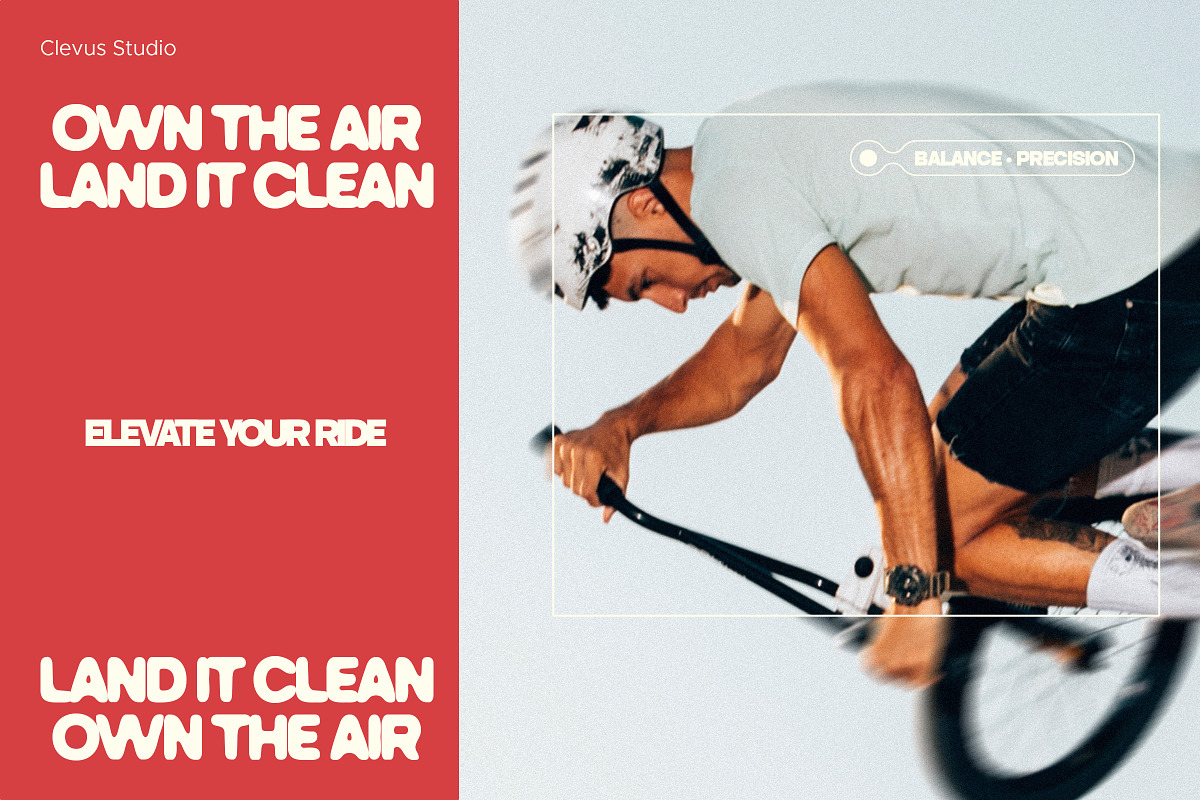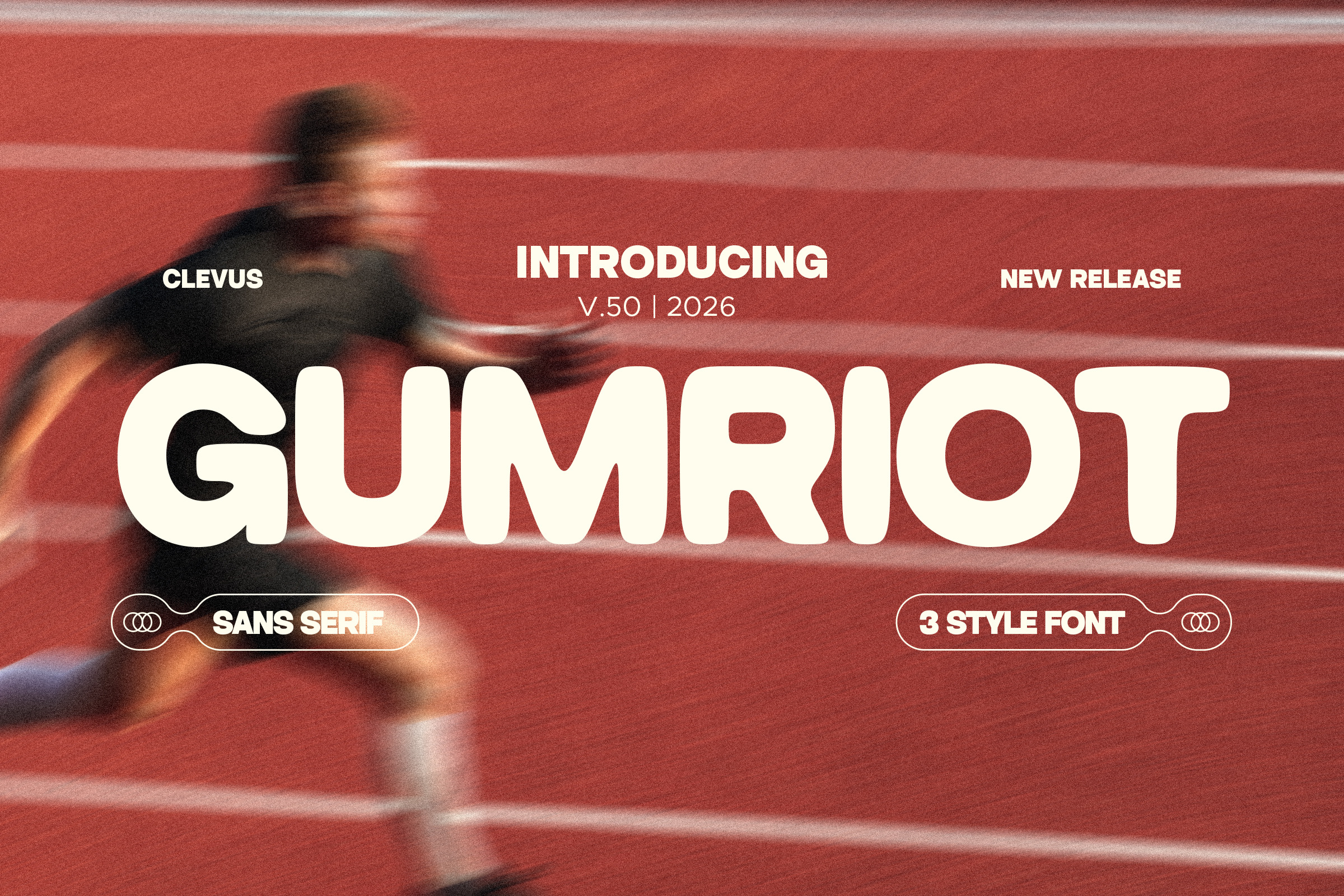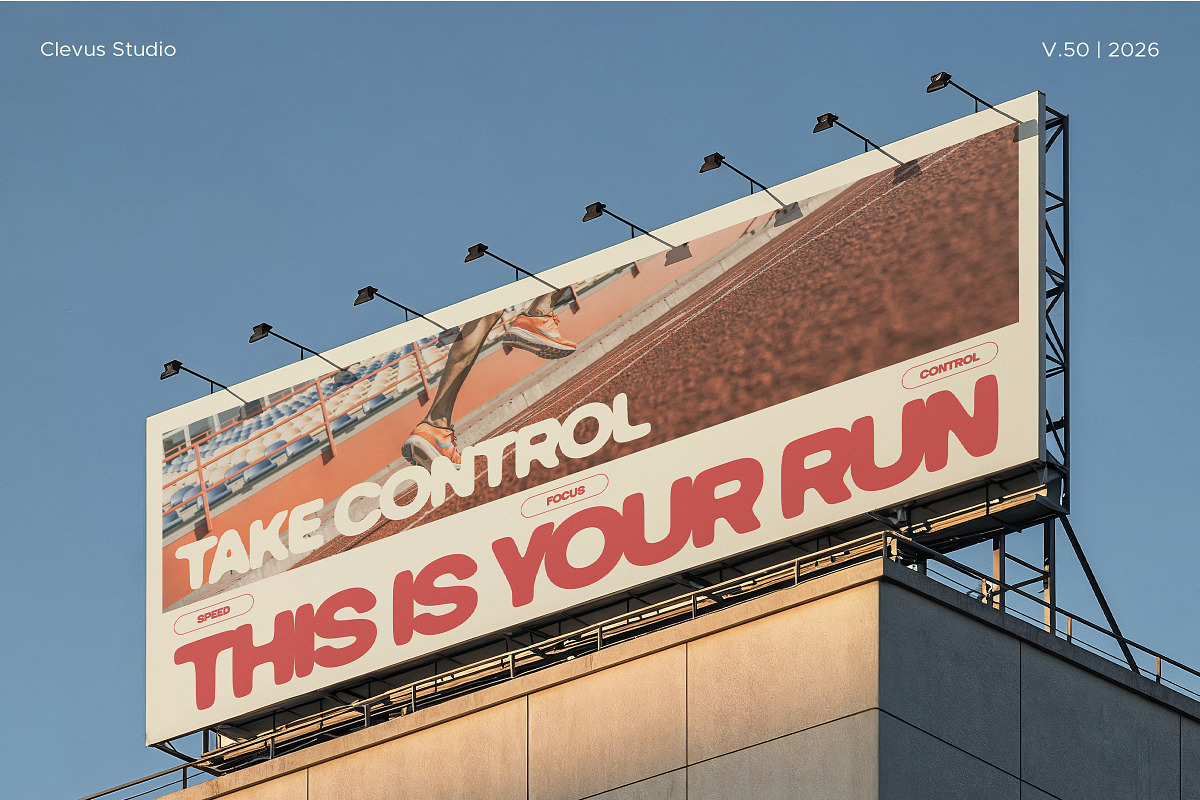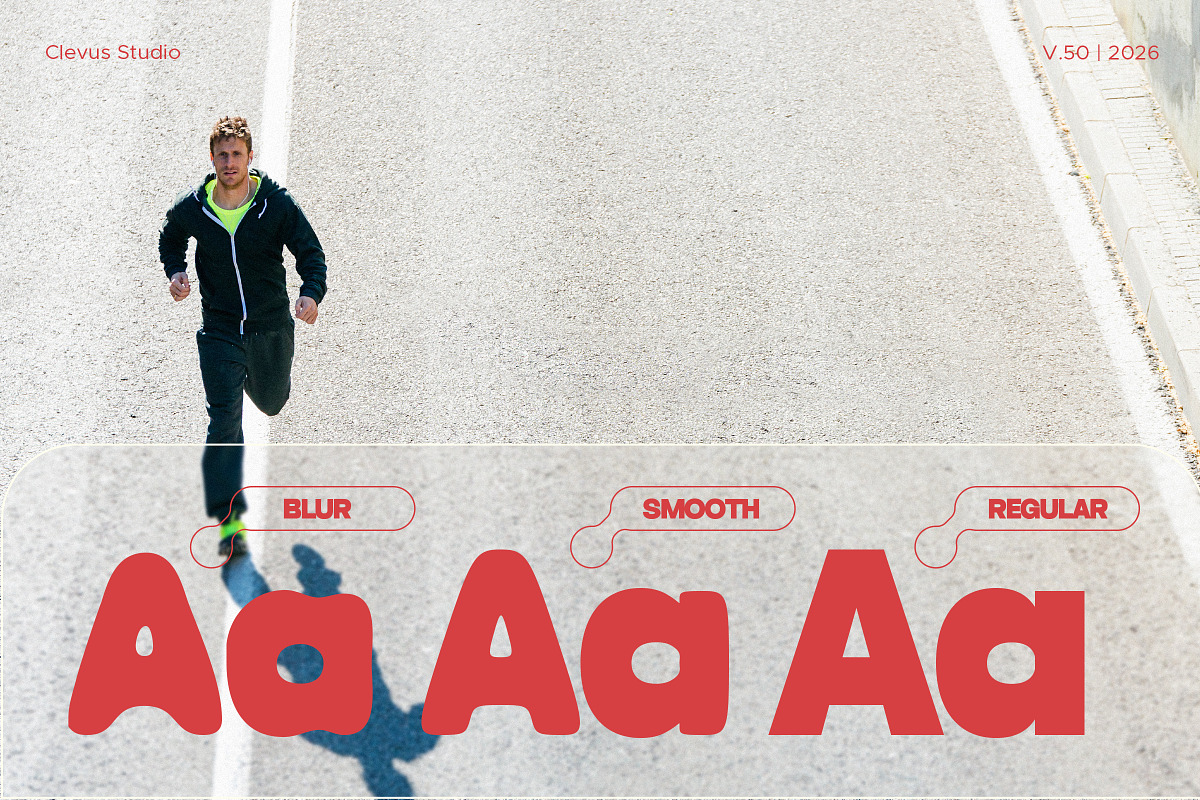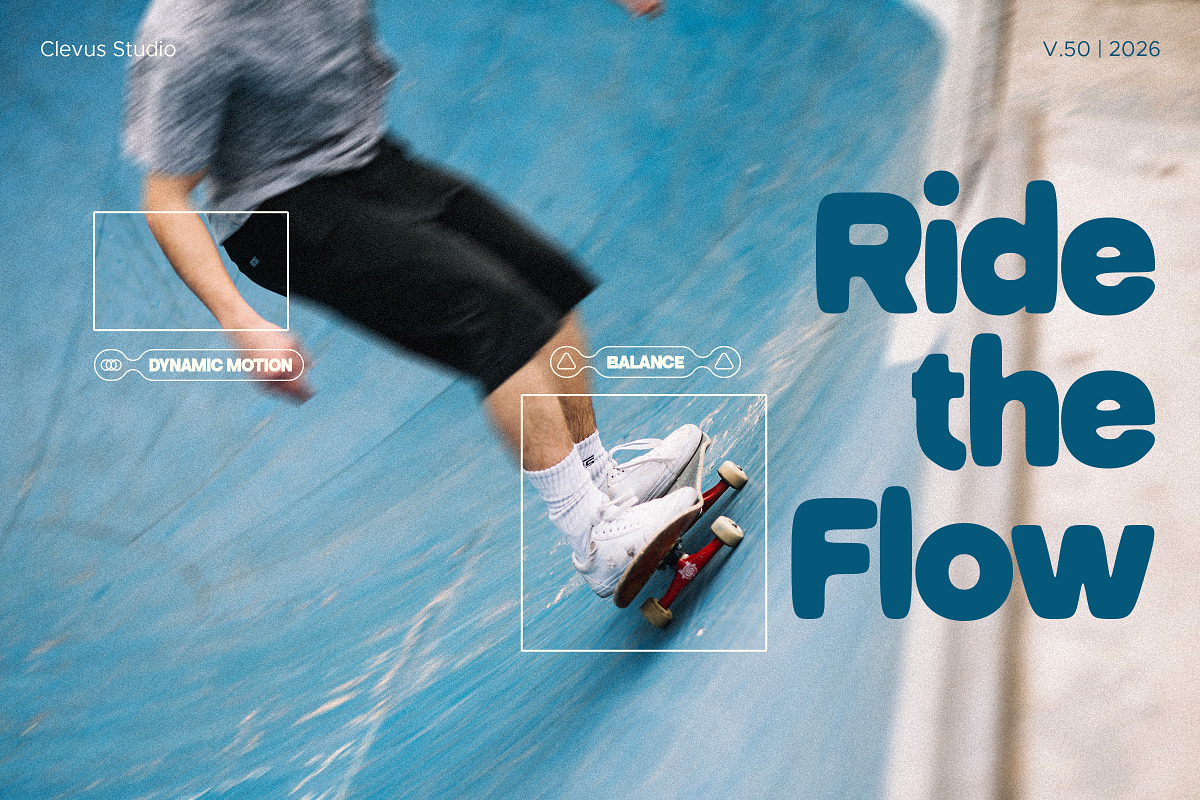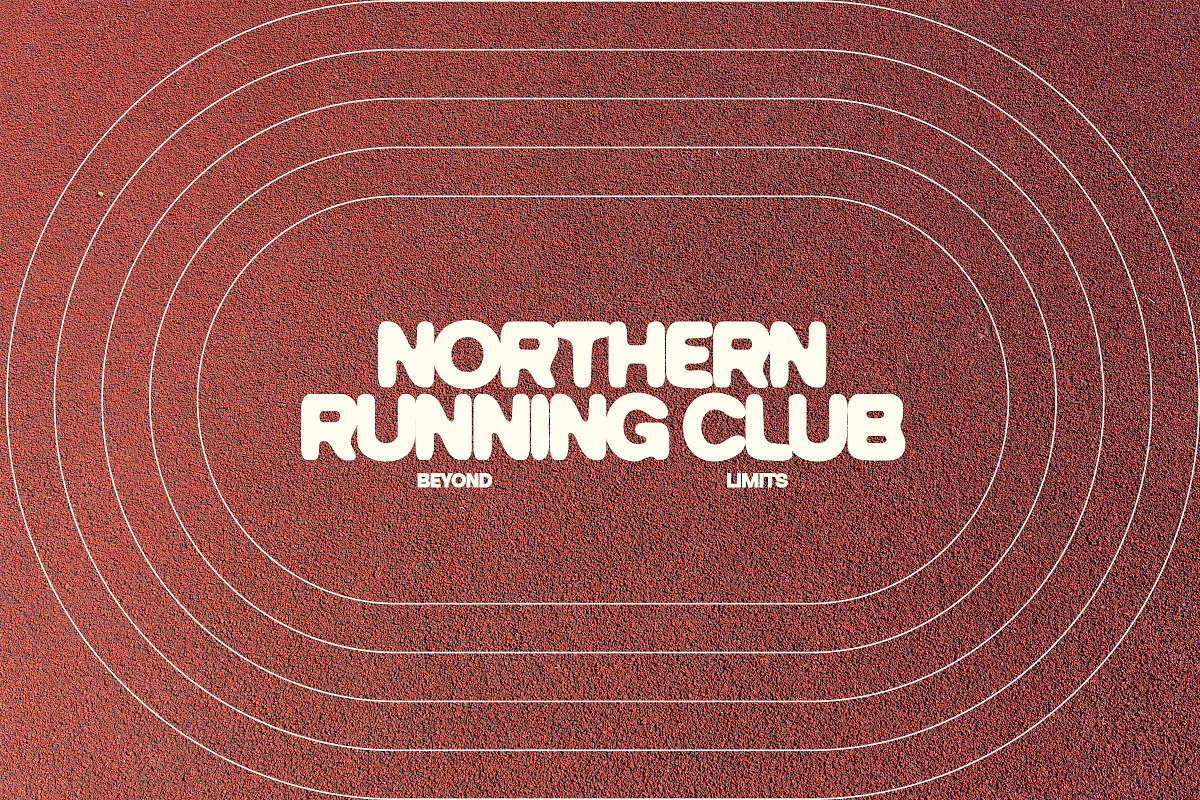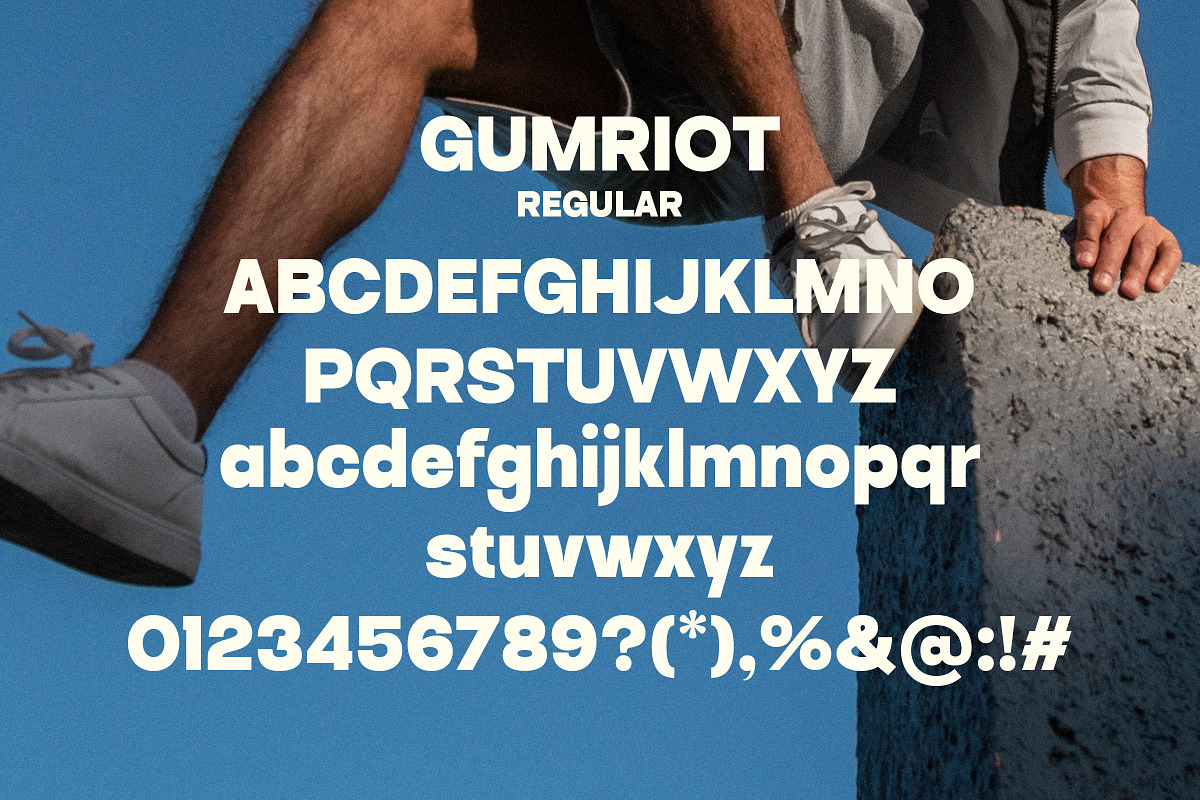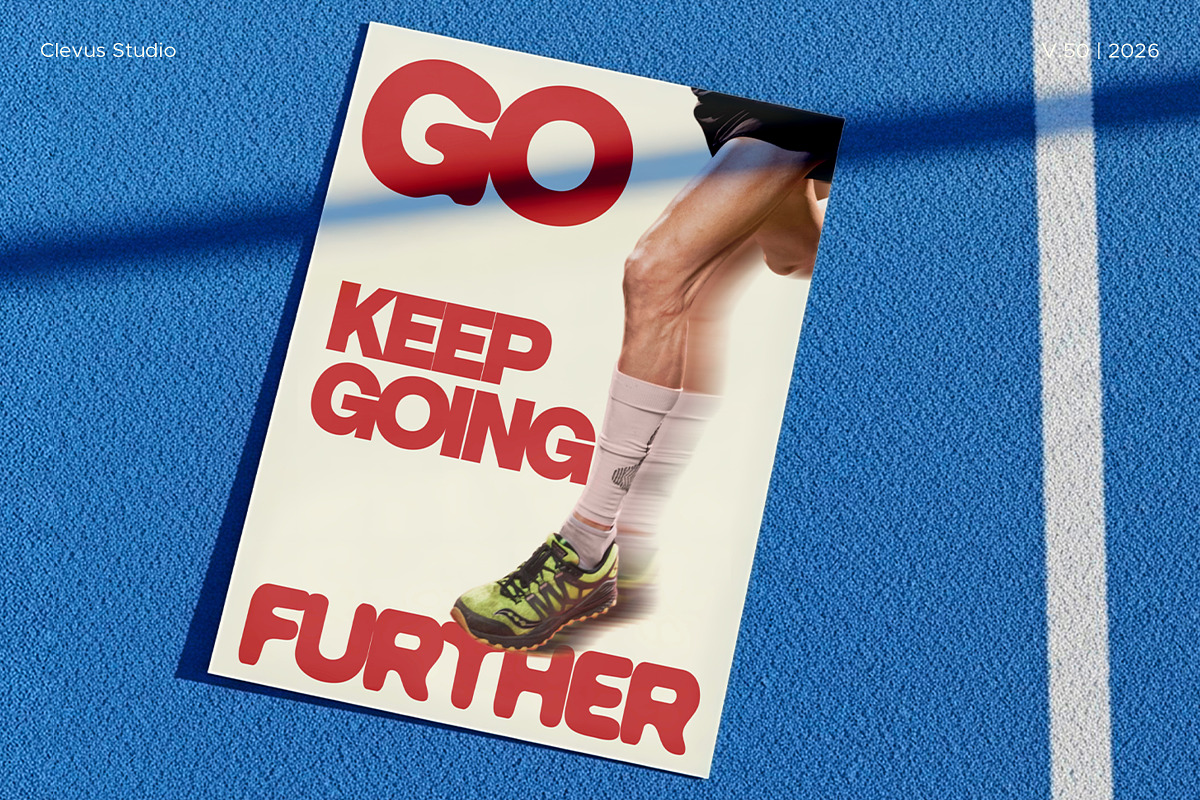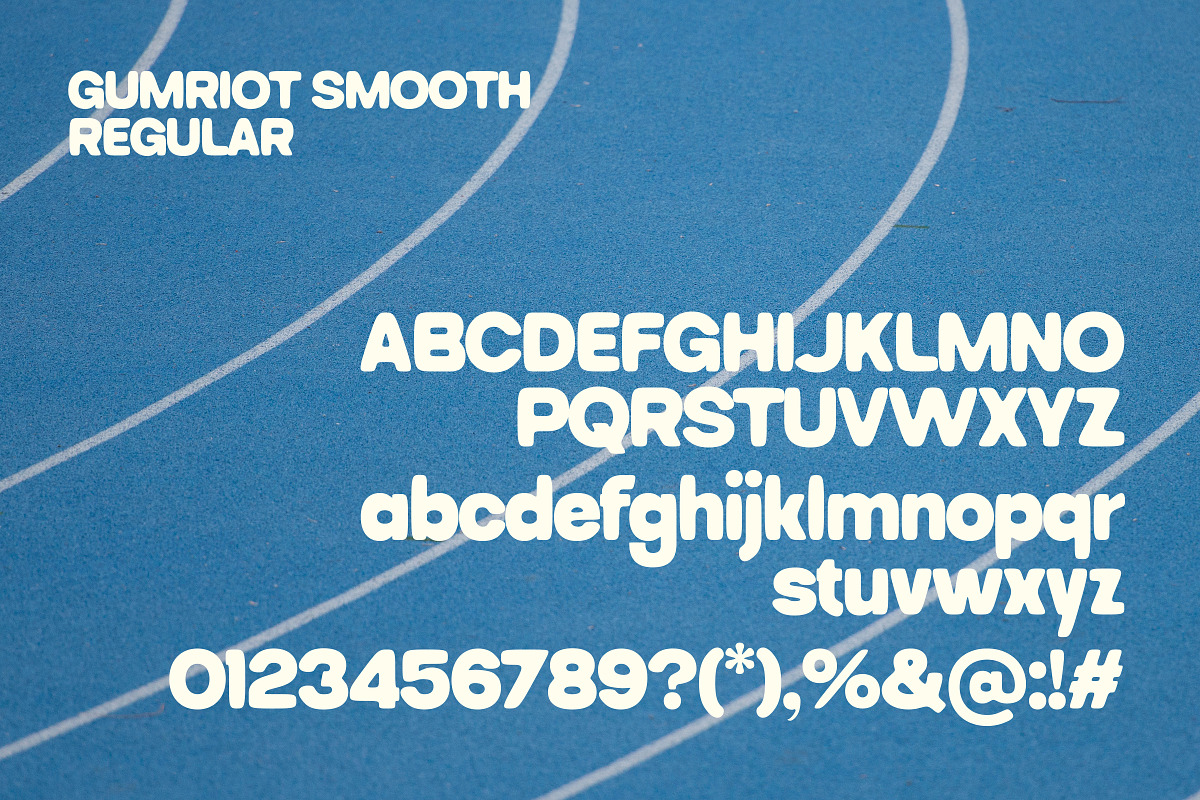
Gumriot | 3 Style Font
Introducing Gumriot, a bold and energetic sans serif font collection designed to bring fun, movement, and personality into your designs. With its chunky shapes, rounded corners, and sporty character, Gumriot delivers a playful yet modern feel that instantly grabs attention. Perfect for branding, posters, packaging, social media, headlines, apparel, and any project that needs a cheerful and standout look.
Gumriot comes in 3 unique styles: • Regular – clean, bold, and versatile • Smooth – softer curves with a friendly appearance • Blur – experimental and eye-catching for creative layouts
Complete with ligatures and stylistic alternatives, Gumriot helps you create stunning logos, quotes, promotional content, magazine layouts, packaging, website headers, and much more. Whether you're designing for sporty brands, lifestyle products, or playful visuals, Gumriot adds a fresh and modern touch to every composition.